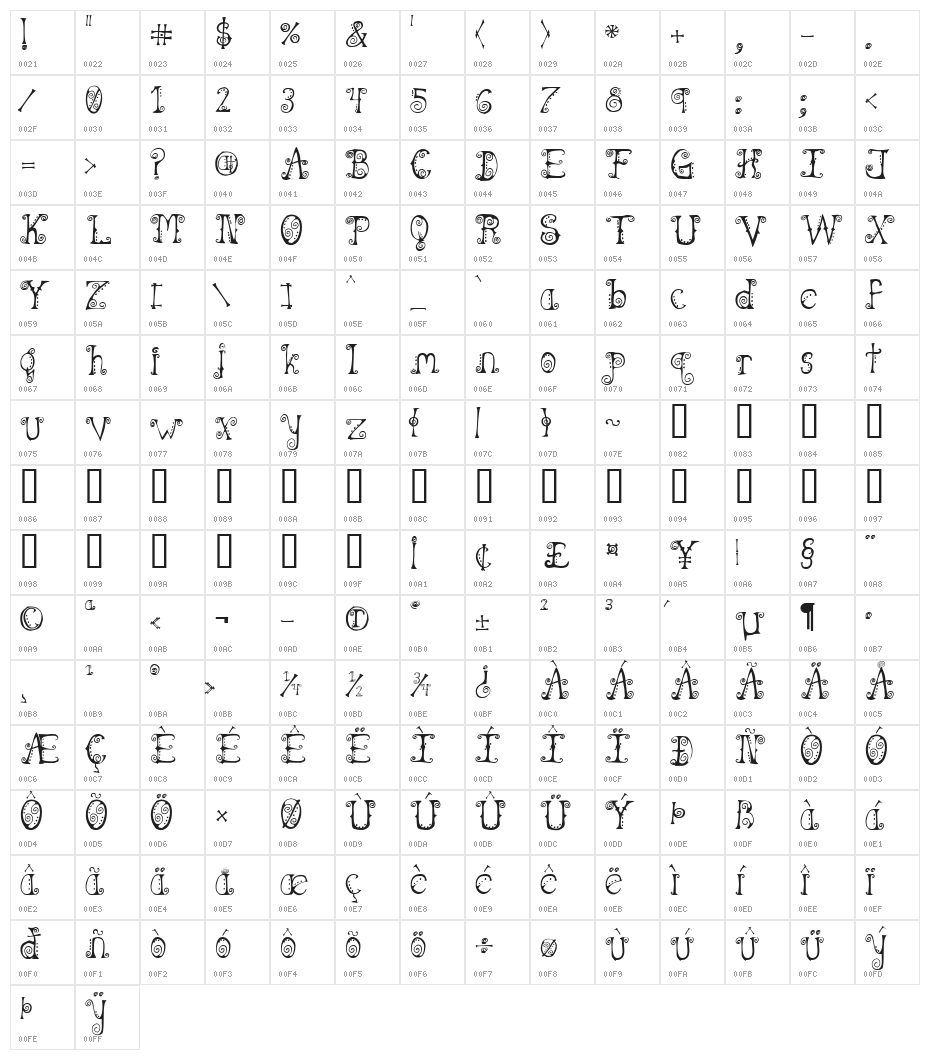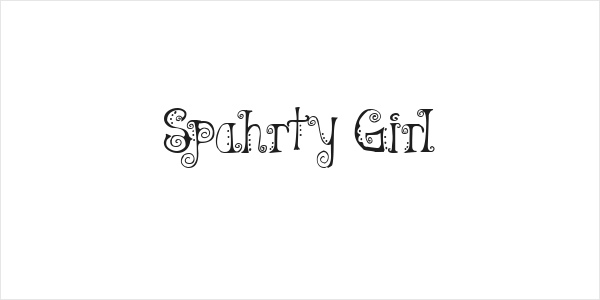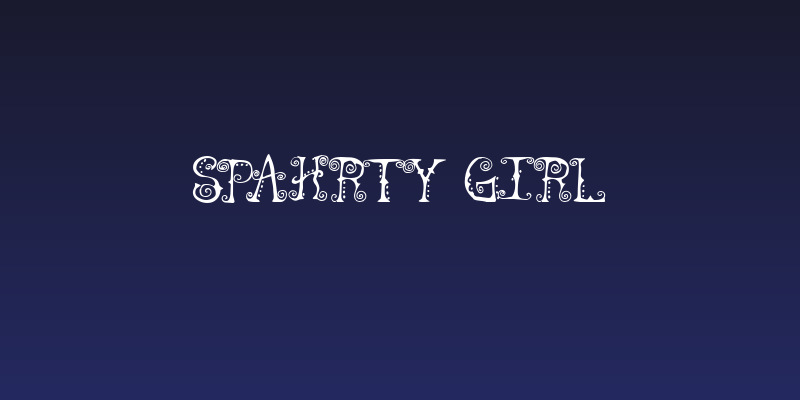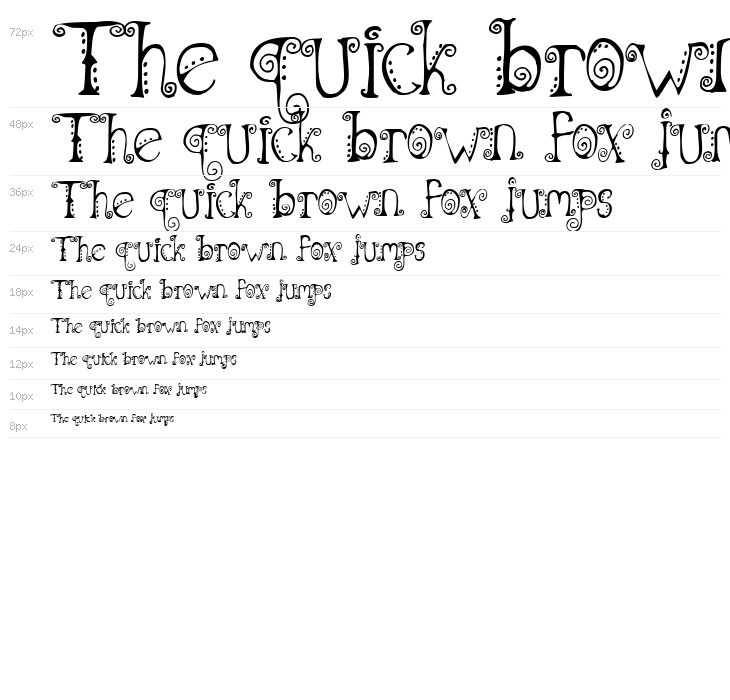
Spahrty Girl Font
Spahrty Girl Description
This whimsical and decorative font features playful swirls and dots integrated into each character, creating a lively and dynamic appearance. The uppercase letters are bold and eye-catching, with intricate details that add a sense of fun and creativity. The lowercase letters maintain the same playful style, ensuring consistency throughout the text. Numbers and special characters are equally adorned with unique embellishments, making them stand out. This font is perfect for projects that require a touch of whimsy and charm, such as children's books, party invitations, or playful branding.
| Proposed Projects | Ideal for children's books, party invitations, playful branding, and creative designs. |